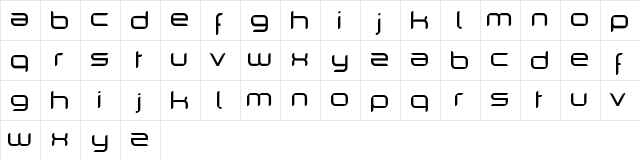
Cilogie Font Preview
Cilogie Cilogie
Cilogie Font Details
| Style | Cilogie |
| Foundry | Beno?t Sj?holm |
| Designer | Beno?t Sj?holm |
Design Context for Cilogie Typeface
Cilogie offers clean, dependable letterforms without strong stylistic allegiance, making it a practical choice for designers who need flexibility.